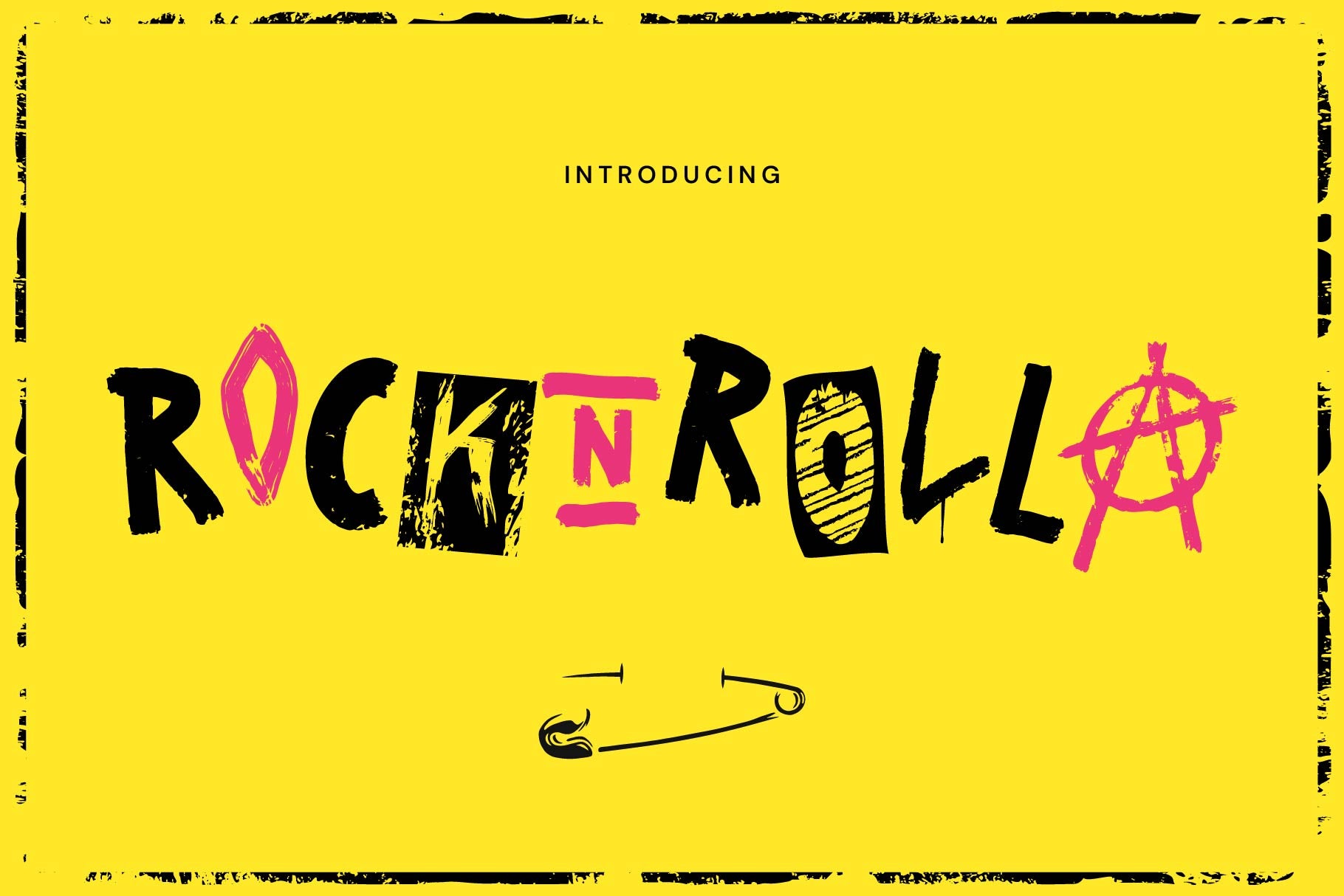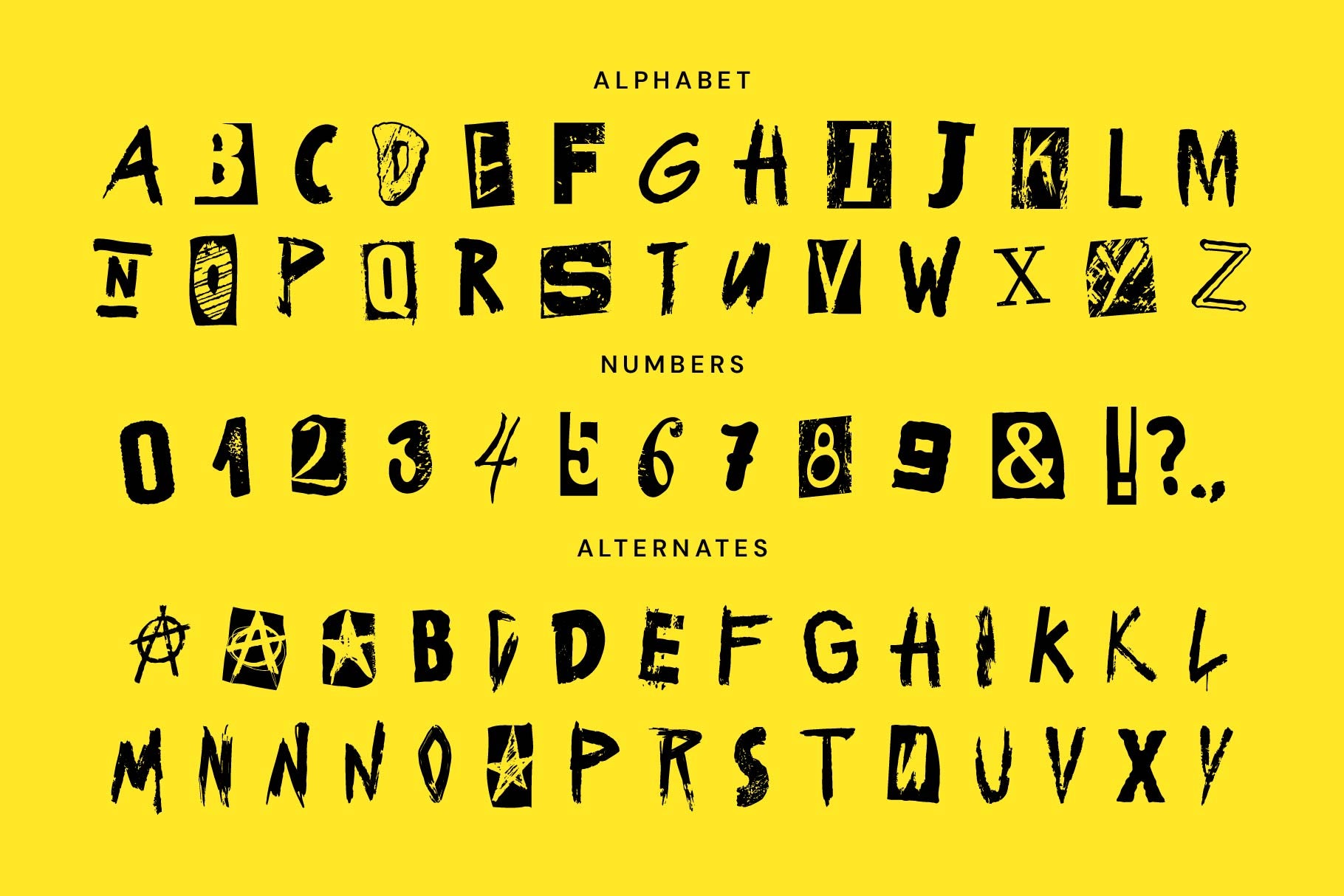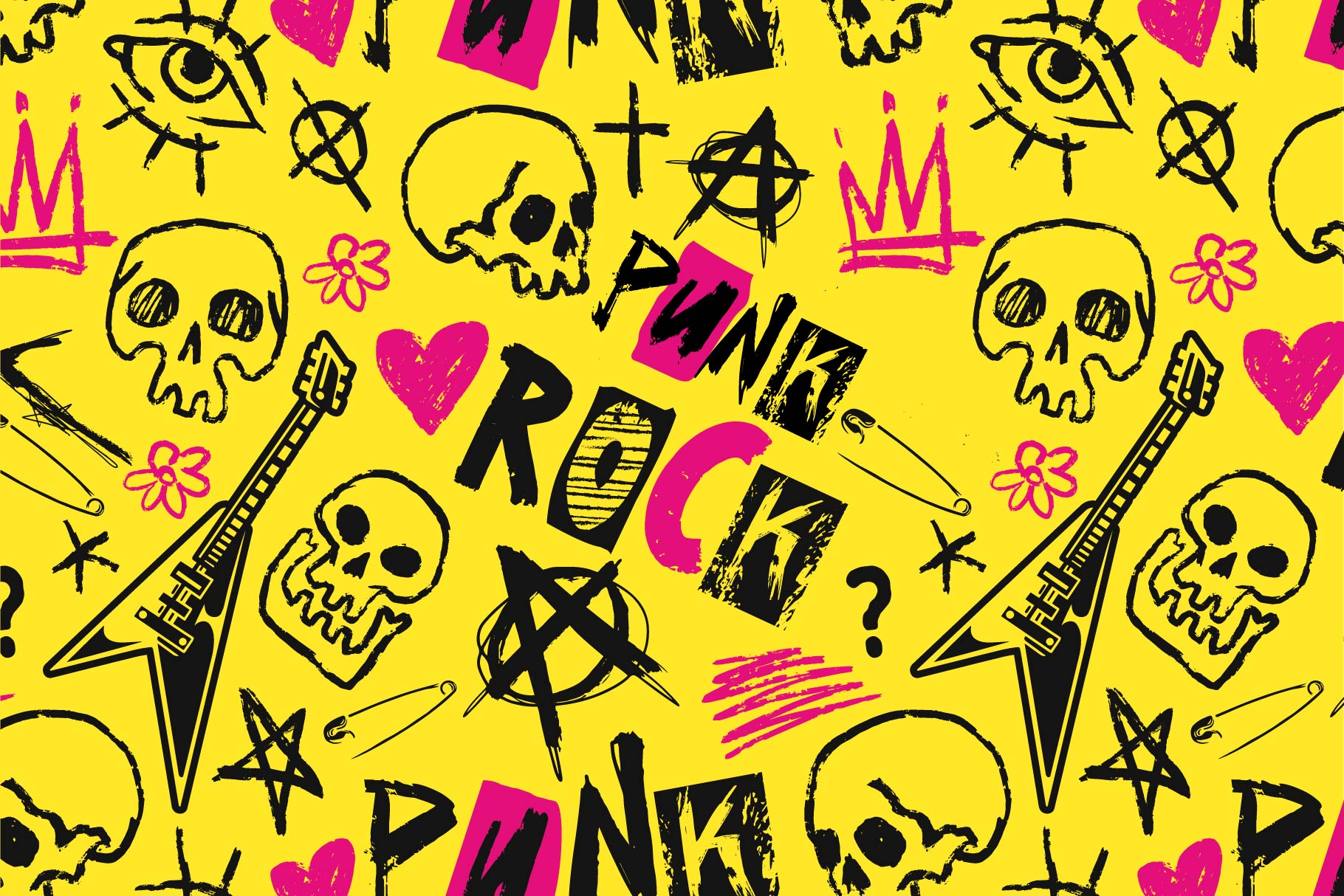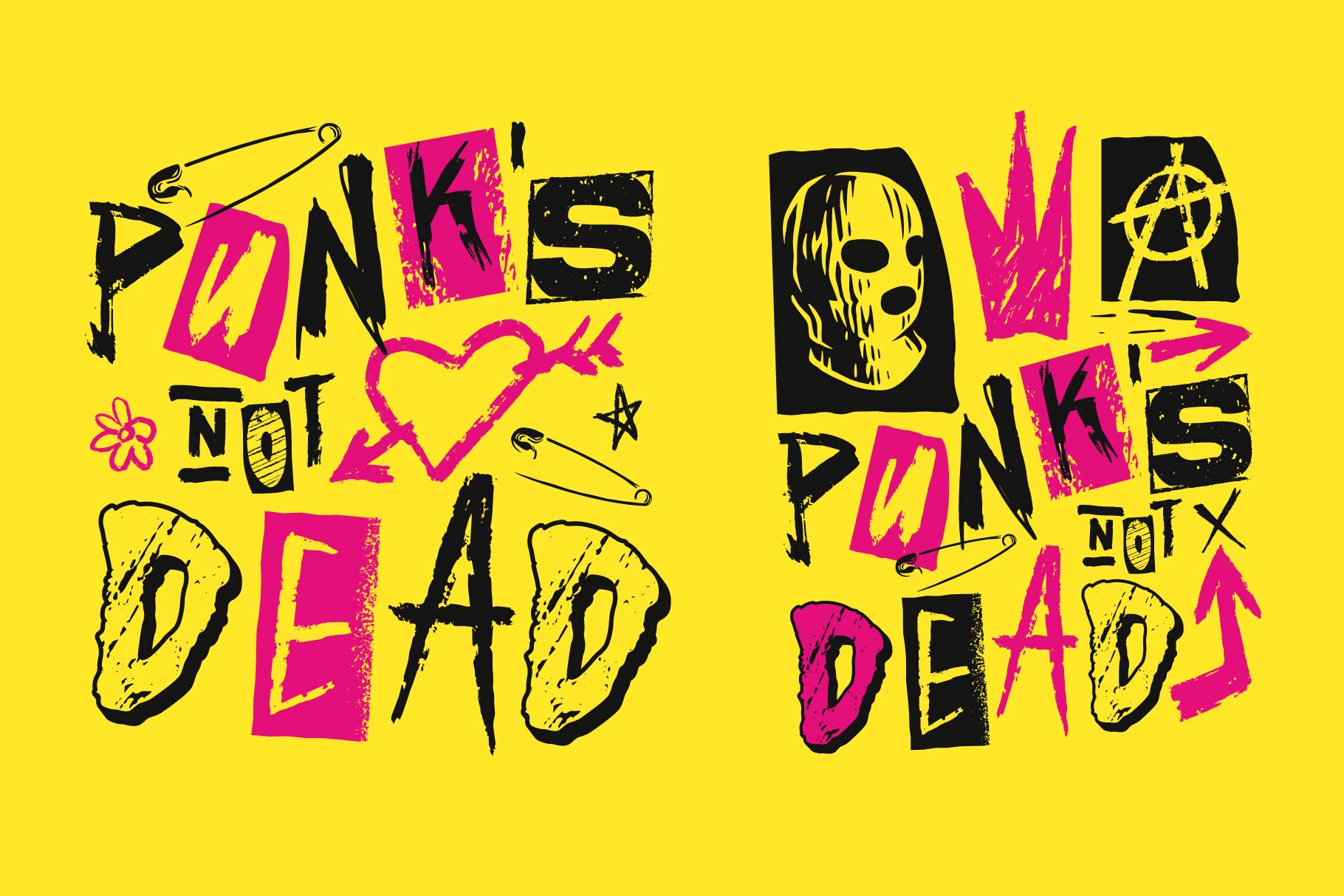
Rocknrolla – Grunge Collage Display Font + Bonus Vector Doodles
Rocknrolla is a bold collage-style display font built for loud, raw, and rebellious visual statements.
This typeface combines hand-drawn letterforms, rough brush textures, and distorted collage elements inspired by punk culture, DIY graphics, and underground music scenes. Each character feels imperfect by design, creating a dynamic and expressive rhythm in text compositions.
The style balances chaos and structure, making the font readable while preserving an aggressive, handmade aesthetic. With alternate characters and irregular forms, Rocknrolla allows flexible typographic layouts that feel organic and alive.
Rocknrolla works especially well in music-related visuals, streetwear branding, posters, album artwork, editorial headlines, and any project that needs a strong anti-polished attitude.
– Full uppercase alphabet
– Numbers and basic punctuation
– Alternate characters